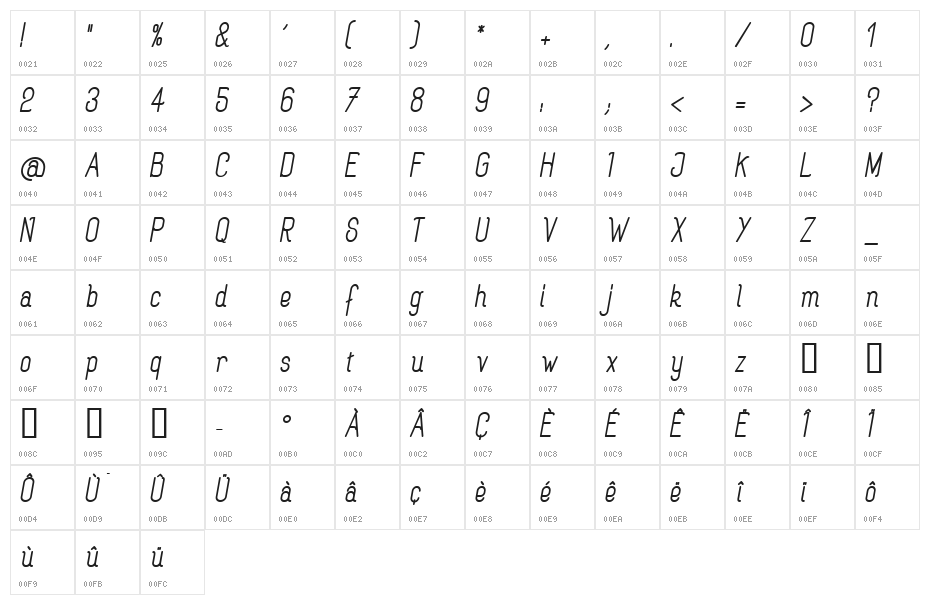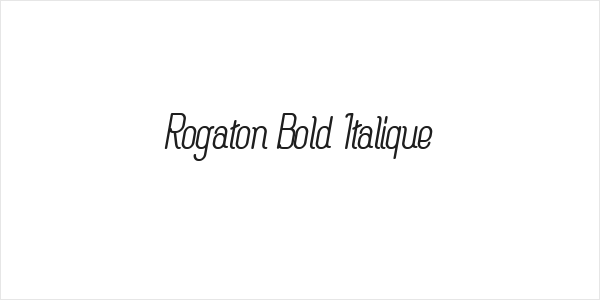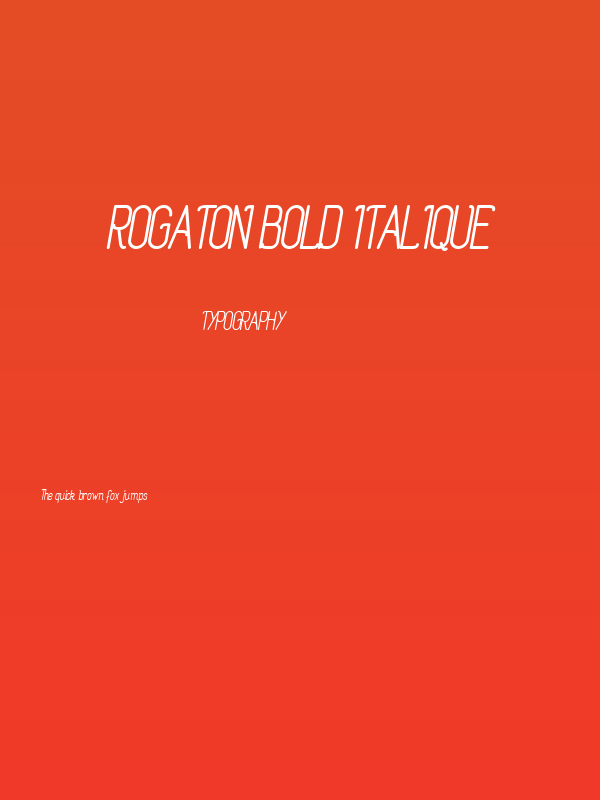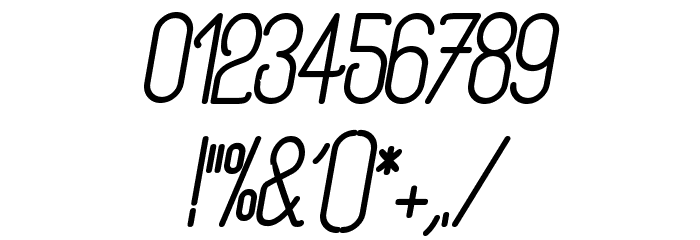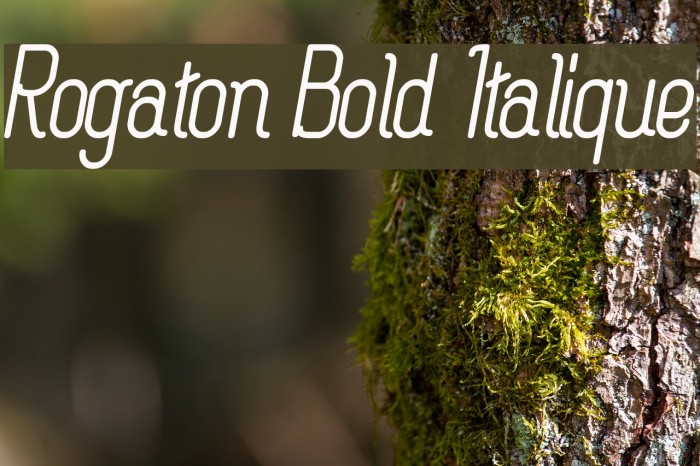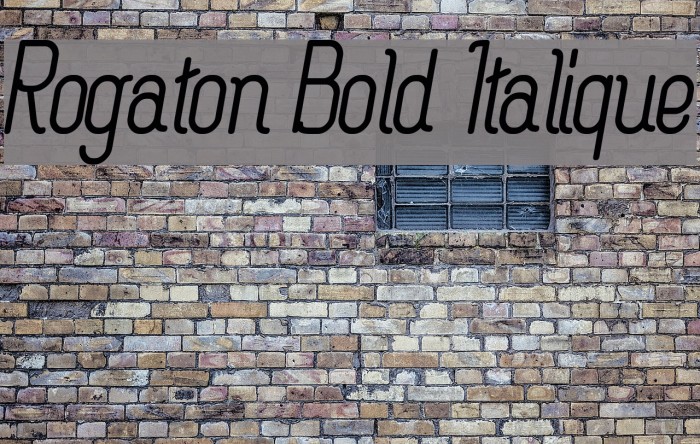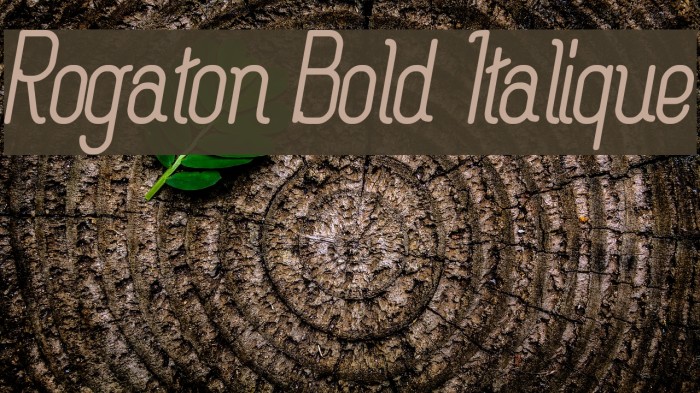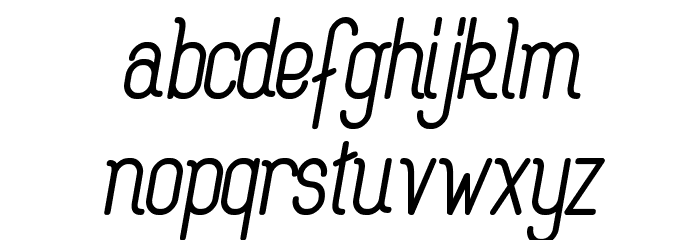
Rogaton Bold Italique Font
Rogaton Bold Italique Description
This font features a bold and italicized style with a modern and sleek appearance. The characters are slightly condensed, giving it a compact look while maintaining readability. The uppercase and lowercase letters are well-proportioned, with a consistent stroke width that adds to its boldness. The numerals are clear and distinct, matching the overall style of the alphabet. Special characters are included, maintaining the same design ethos. This font is suitable for projects that require a contemporary and dynamic feel, such as branding, advertising, and digital media.